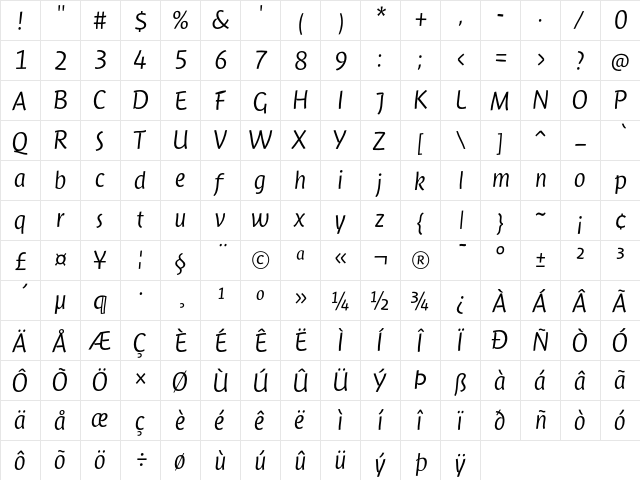
JambonoTF-Light Regular
Design Context for JambonoTF-Light Typeface
JambonoTF-Light is a composed and adaptable typeface that performs quietly and consistently across a wide range of design contexts. The delicate stroke weight brings airiness and refinement to layouts.